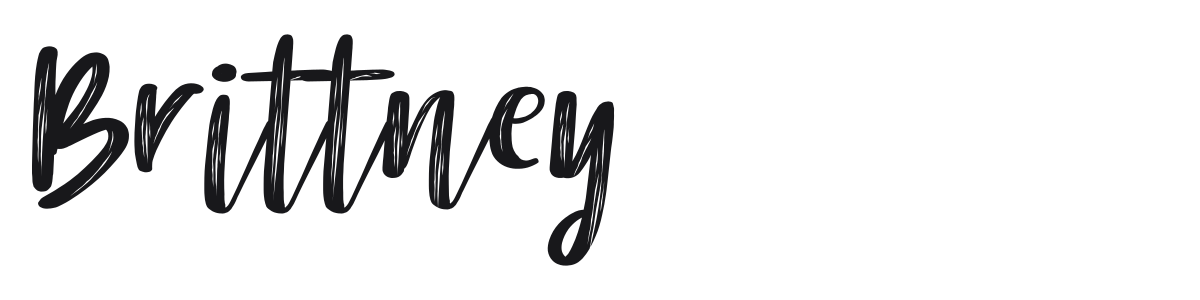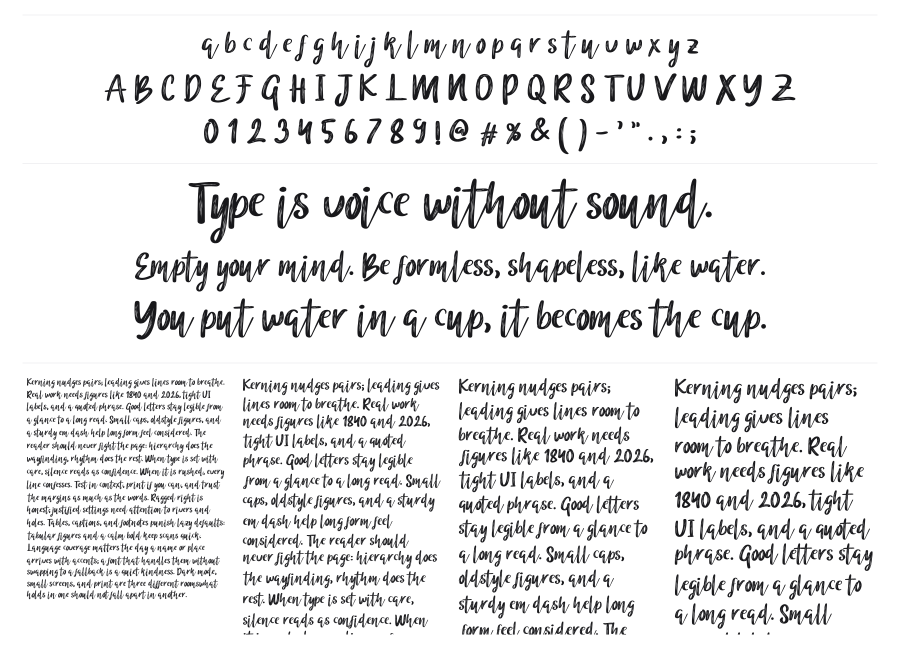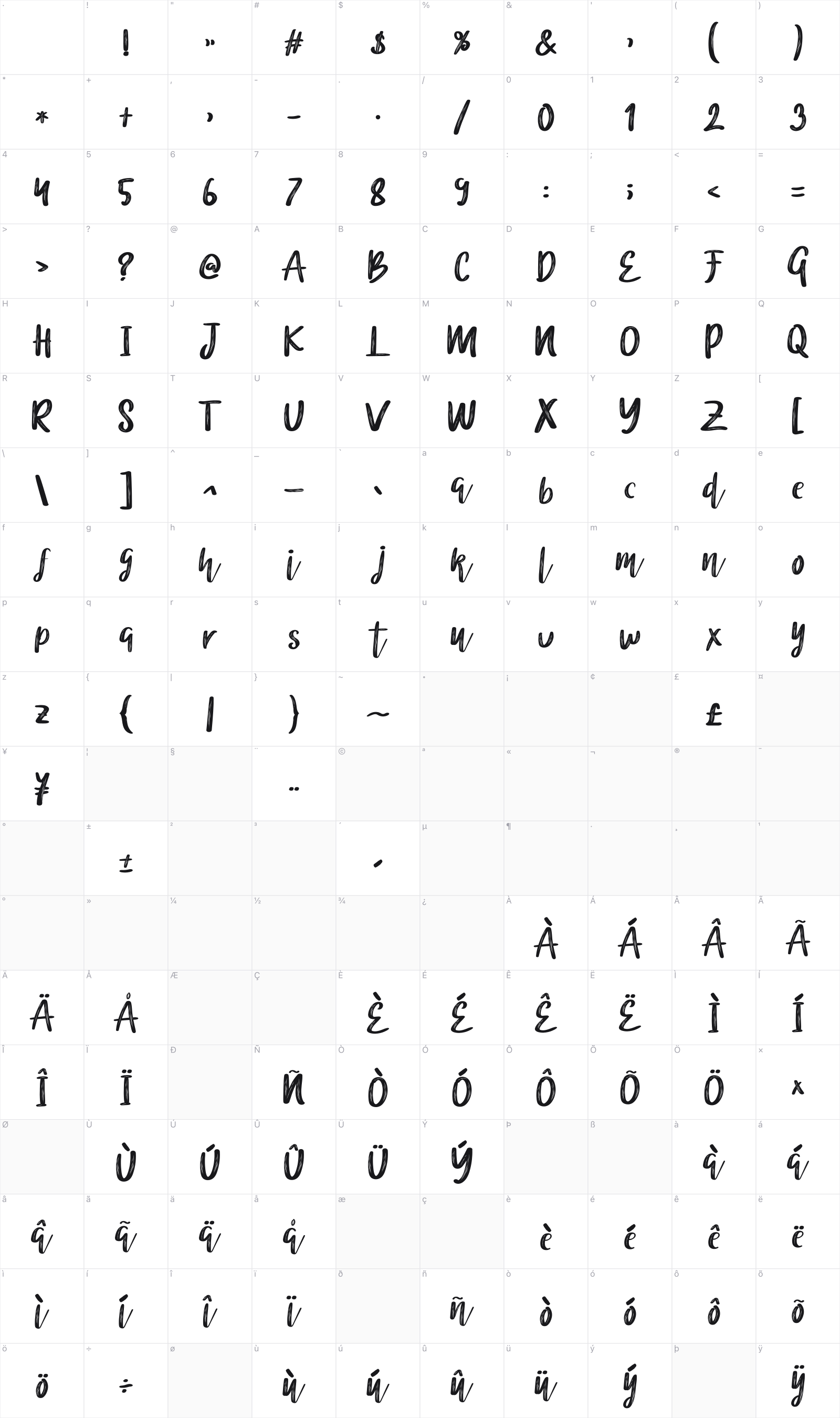
Brittney
Brittney is a casual brush script with a rough, bristle-textured stroke that captures the energy of real hand-lettering. The connected, bouncy characters flow naturally from letter to letter with a relaxed looseness that feels personal rather than formal. It works well on packaging, social graphics, and any project that needs an authentic handmade quality.